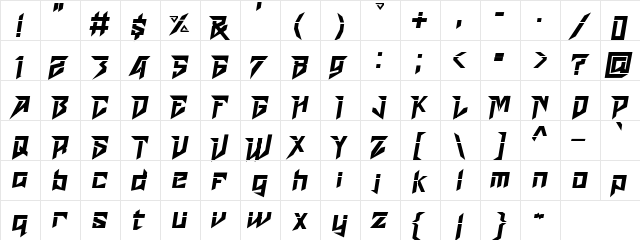
Dead Space Regular
Design Context for Dead Space Typeface
Dead Space is a composed and adaptable typeface that performs quietly and consistently across a wide range of design contexts.